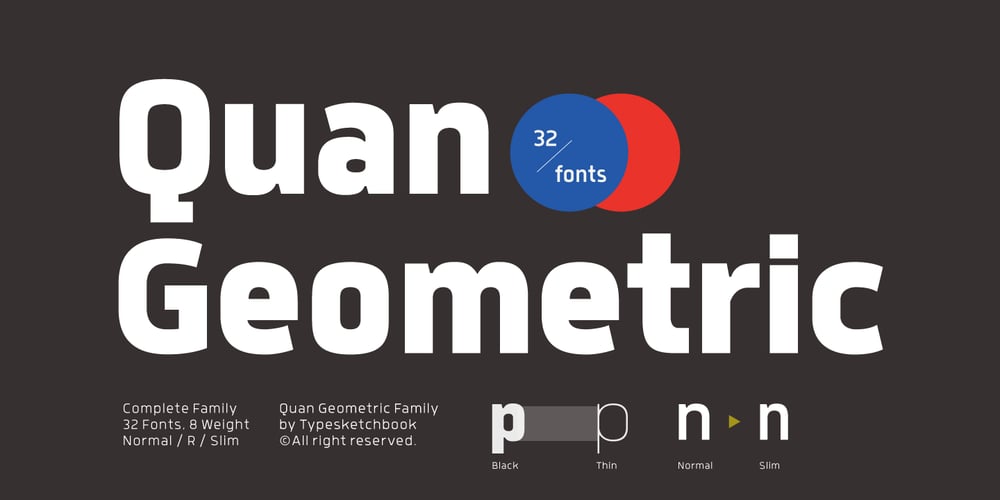
Quan Geometric
Quan Geometric font
Quan Geometric Font Family was designed by Chatnarong Jingsuphatada and published by Typesketchbook. Quan Geometric contains 32 styles and family package options. Quan Geometric is an altered modified from the form of the original Quan Pro typeface. Designed to be more Corporate, the font family has flat terminals that harmonizes with sharp corners. With all of these features, “Kelpt Sans” is a prominent, eye-catching and unique typeface. It comes with 8 weights with slim option in order to suit for a multifunctional usage, especially for cooperative work, such as website, magazine, editorial, publishing, as well as packaging.